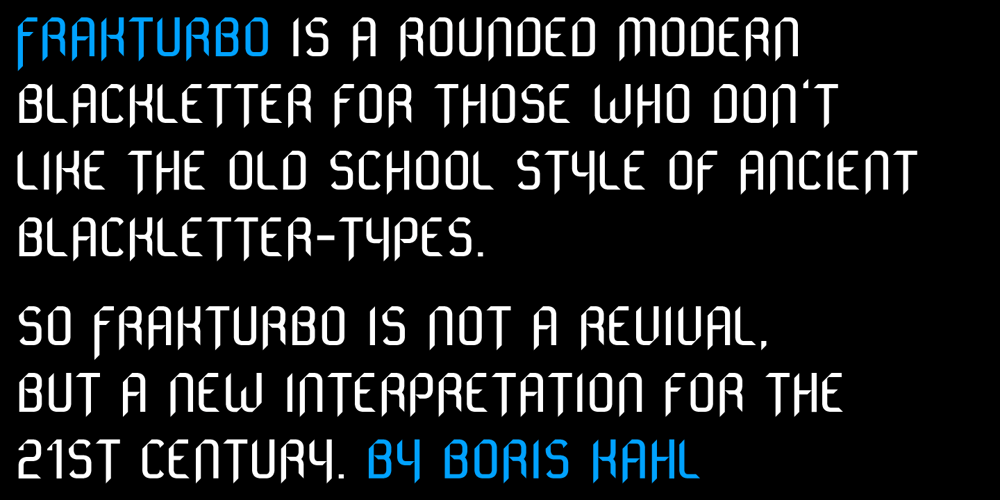
Frakturbo Font Family was designed by Boris Kahl and published by Volcano Type. Frakturbo contains 1 styles and family package options. Frakturbo is a rounded modern blackletter for those who don’t like the oldscool style of ancient blackletter-types. So Frakturbo is not a revival, but a new interpretation for the 21st century.